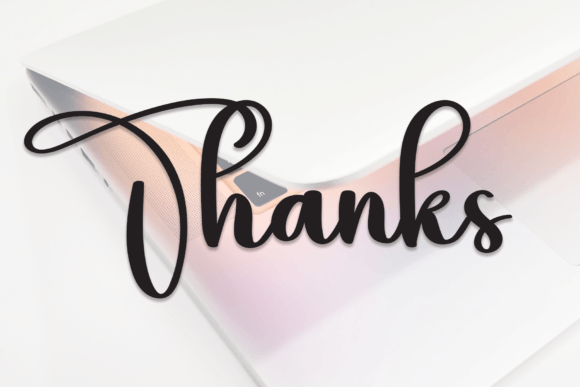
Digital Font
Digital is a sweet and cursive handwritten font. This gentle font will look gorgeous on a variety of design ideas. It will add a joyful and romantic touch to each of your projects!  Perfectly fit for branding, logo, wedding things, greeting cards, fashion, lookbook, marketing promotion, anytime you want to look fancy elegant but still casual.